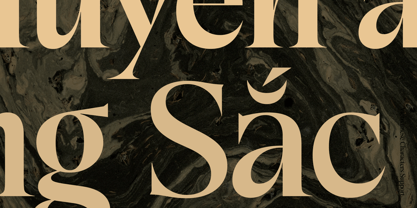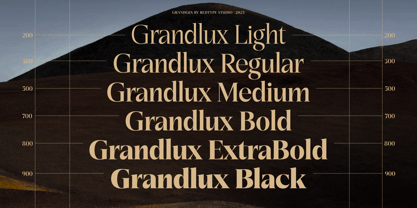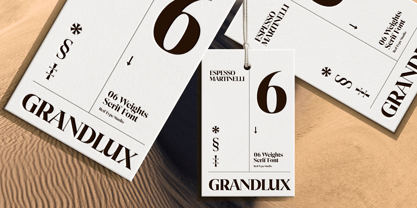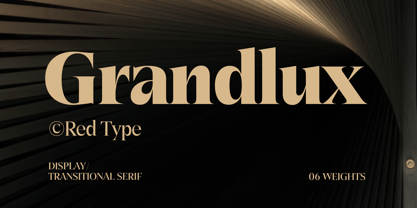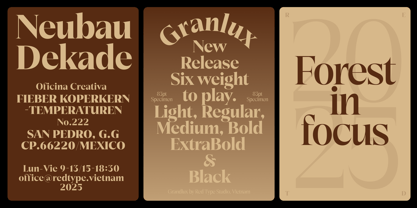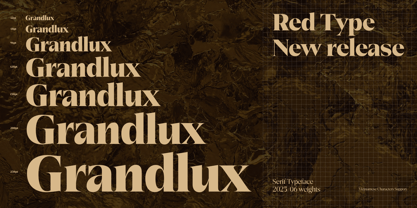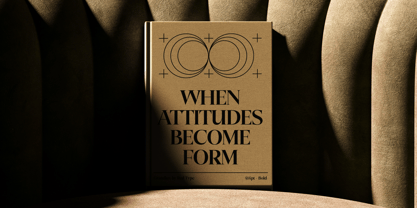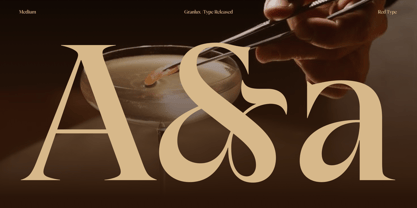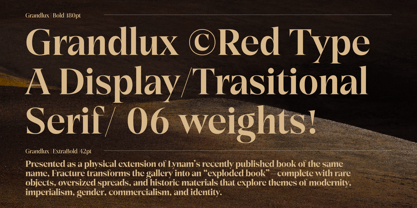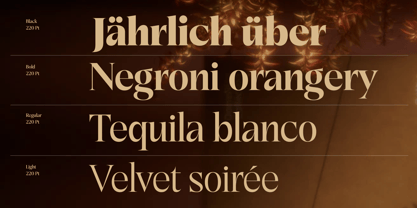
Grandlux
by Red Type
The Grandlux Font Family was designed by Quang Ngo and published by Red Type. Grandlux contains 6 styles and family package options. More about this family
Grandlux is an elegant transitional serif where classic structure meets modern sharpness. Its high-contrast letterforms and crisp serifs create a sophisticated, luxurious feel, perfect for projects that demand a refined and confident voice. Achieve perfect visual hierarchy with six versatile weights, from a delicate Light to a powerful Black. The family is packed with OpenType features and includes extensive language support with a full character set for Extended Latin and Vietnamese. Ideal for luxury branding, editorial headlines, high-end packaging, and sophisticated web design.